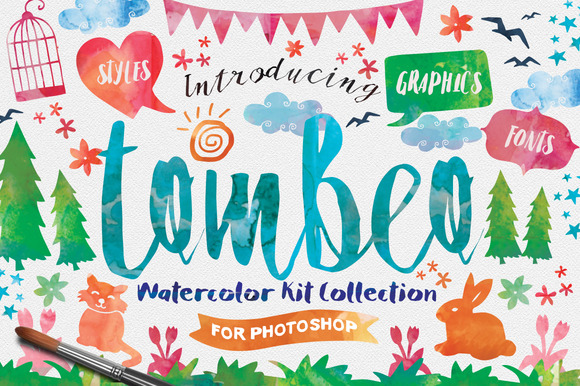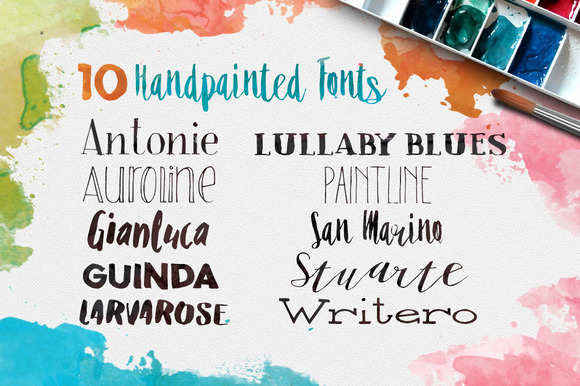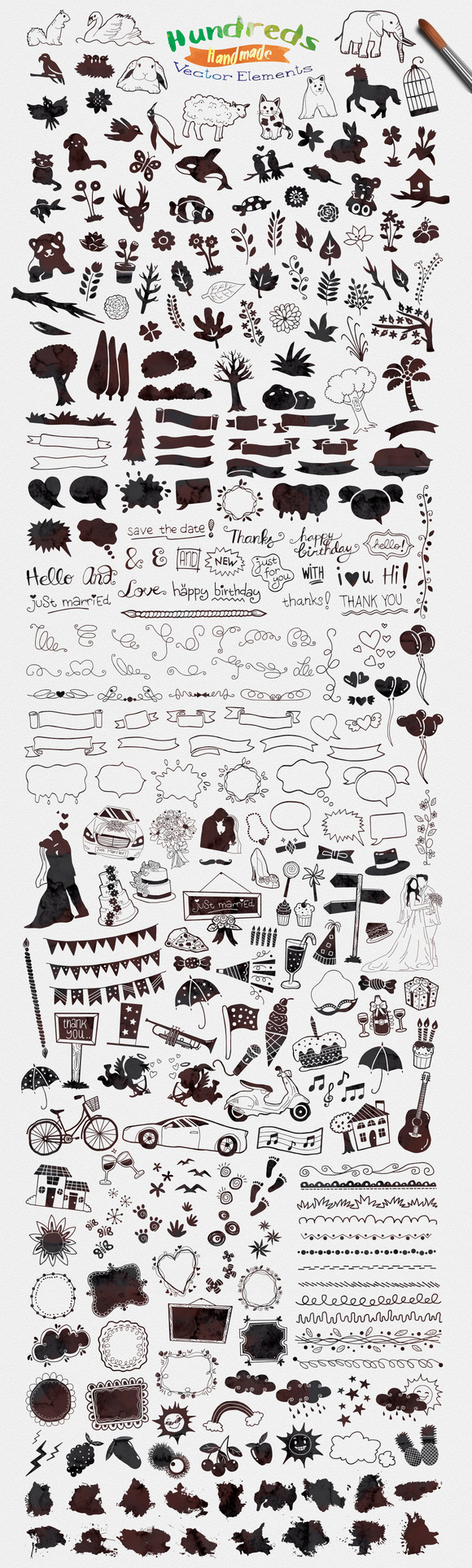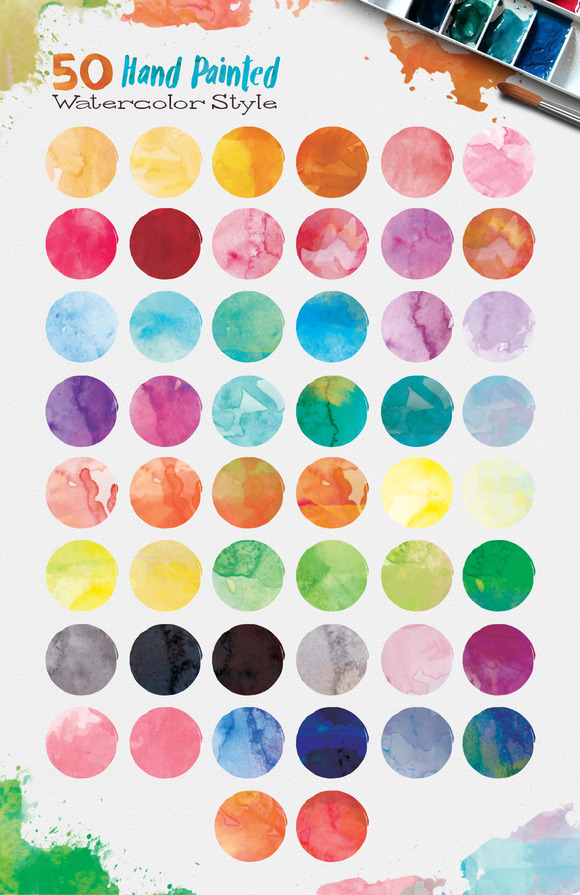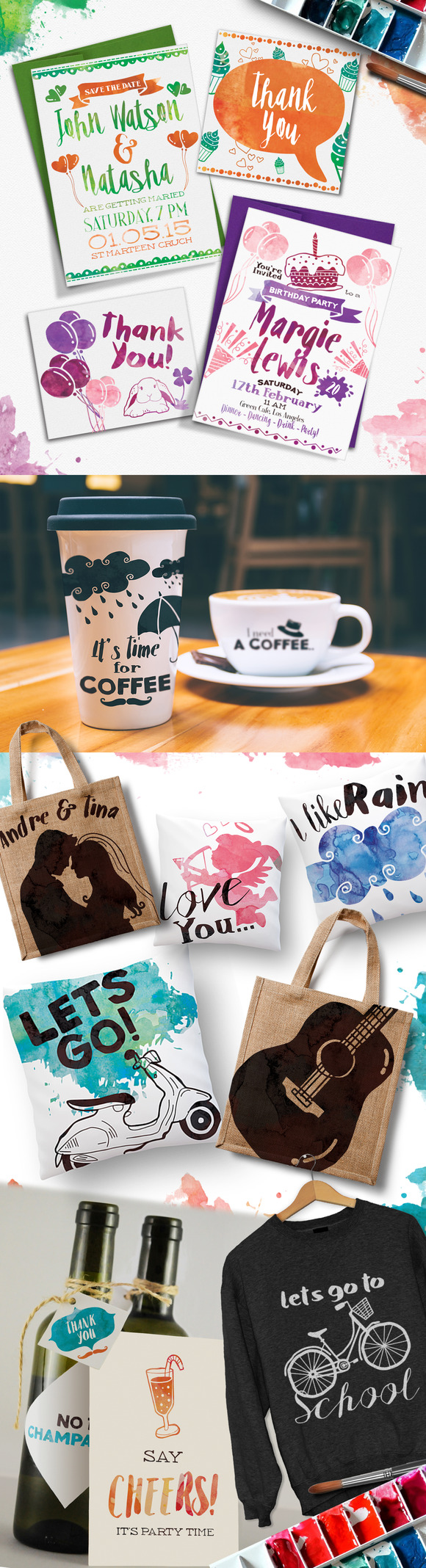
Tombeo Watercolor Kit Collection is a huge collection of font, vector element, and photoshop style. All of the items are specially made for this kit, so it’s really special collection and it has special price too 🙂 So, what you will get in this kit, let’s check below :
Antonie
Auroline
Guinda
Gianluca
Larvarose
Lullaby Blues
Paintline
San Marino
Stuarte
Writero